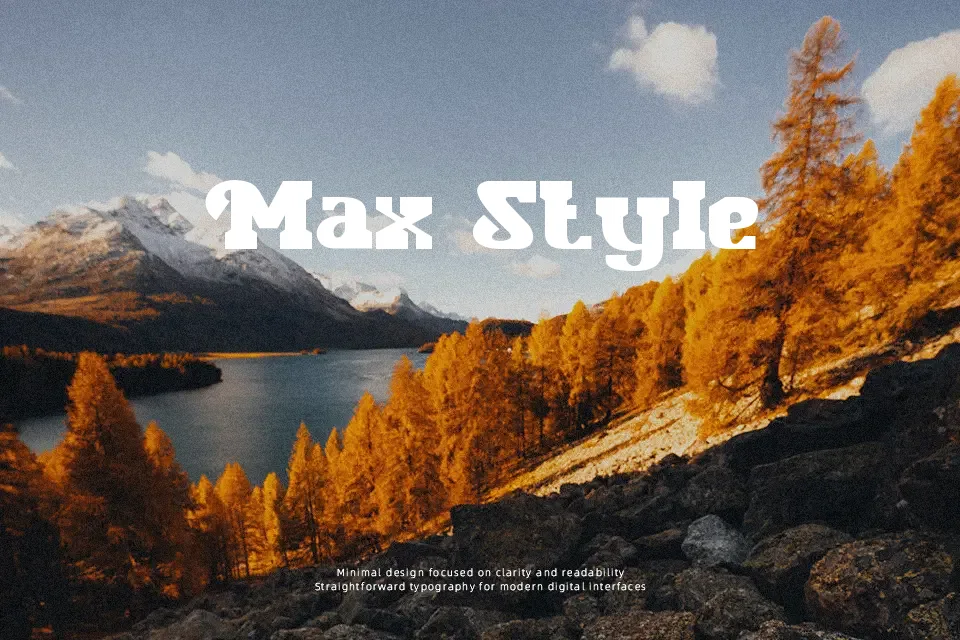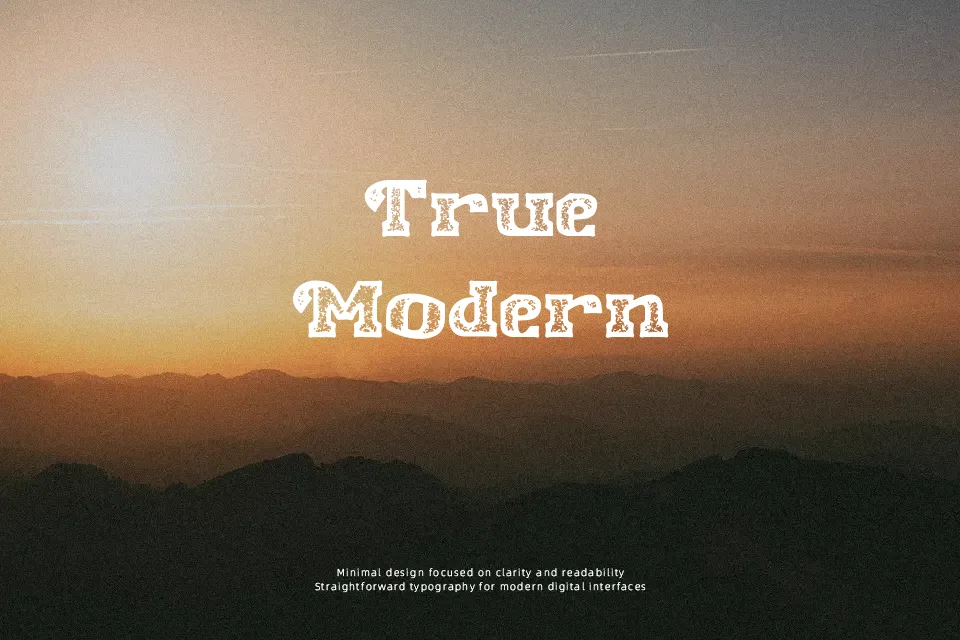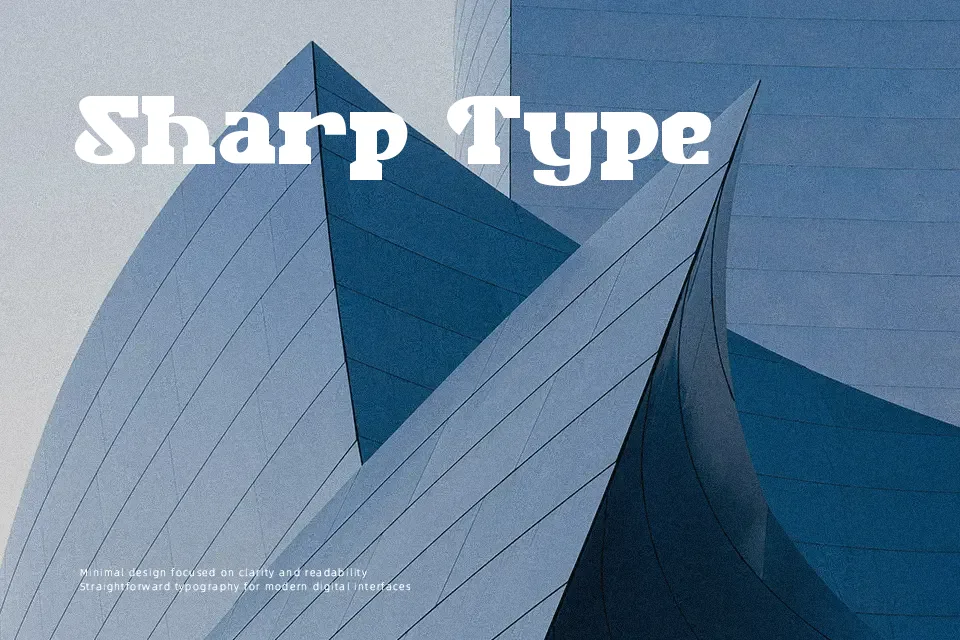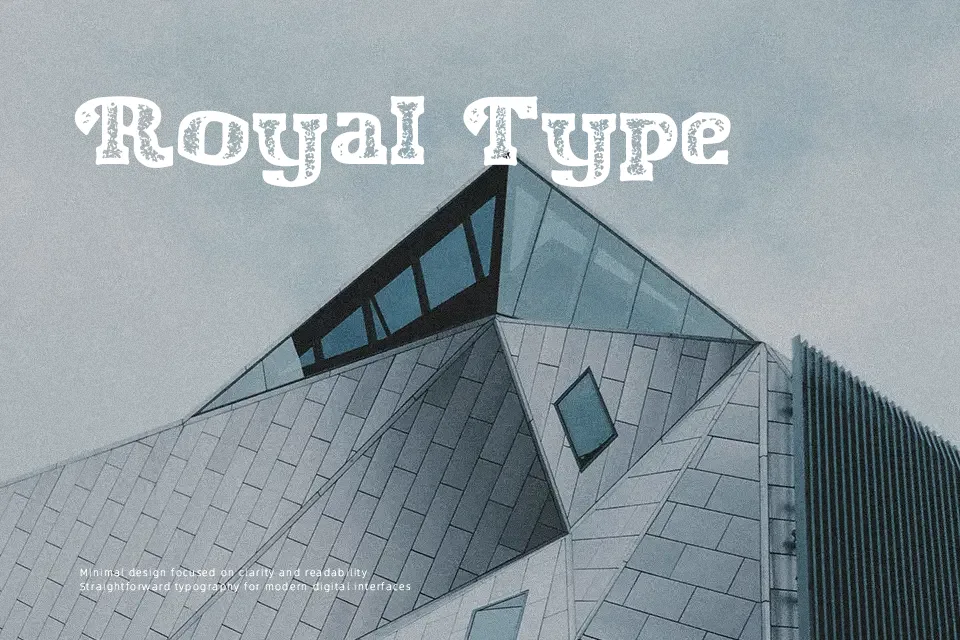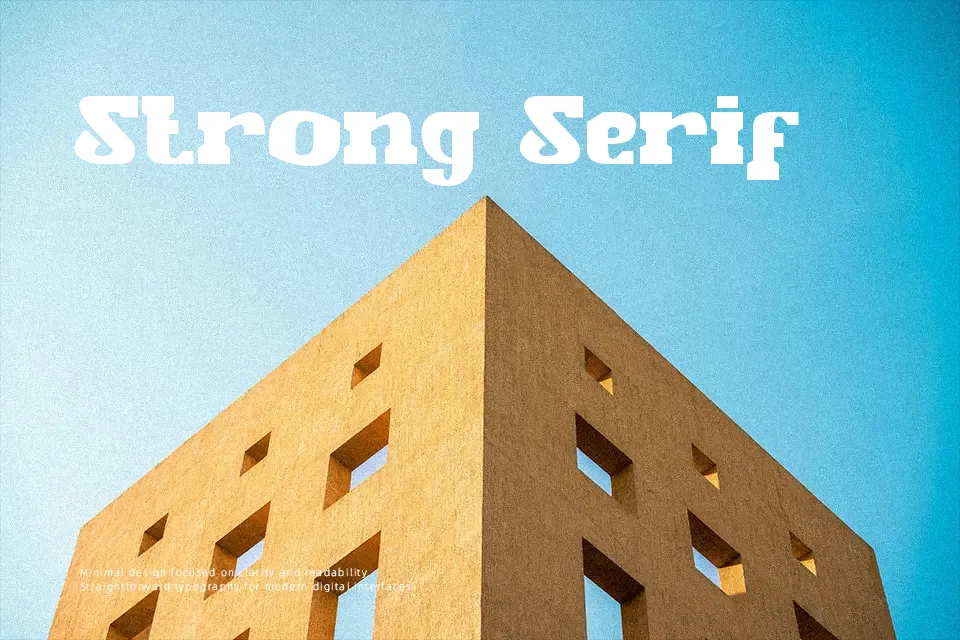
Small Heath Font
Small Heath Font exhibits heavy, squared slab serifs anchored by uniform stroke weights and distinct geometric proportions across its uppercase letterforms. The letterforms maintain consistent optical spacing, giving words a structured and authoritative cadence in large-scale applications. Its sturdy terminals and deliberate angles deliver immediate visual weight, making the typeface particularly effective for heritage brand identities, craft packaging, and rustic editorial headlines. However, the prominent serifs and robust strokes create visual crowding in dense paragraphs, making the design unsuitable for extended body text or small interface elements. In practical display environments, the balanced horizontal rhythm preserves legibility from a distance, provided letter spacing is given adequate breathing room.
Best For: vintage product packaging, craft brewery logos, western event posters, heritage signage headlines
Not Ideal For: continuous body text, mobile interface labels, dense technical manuals